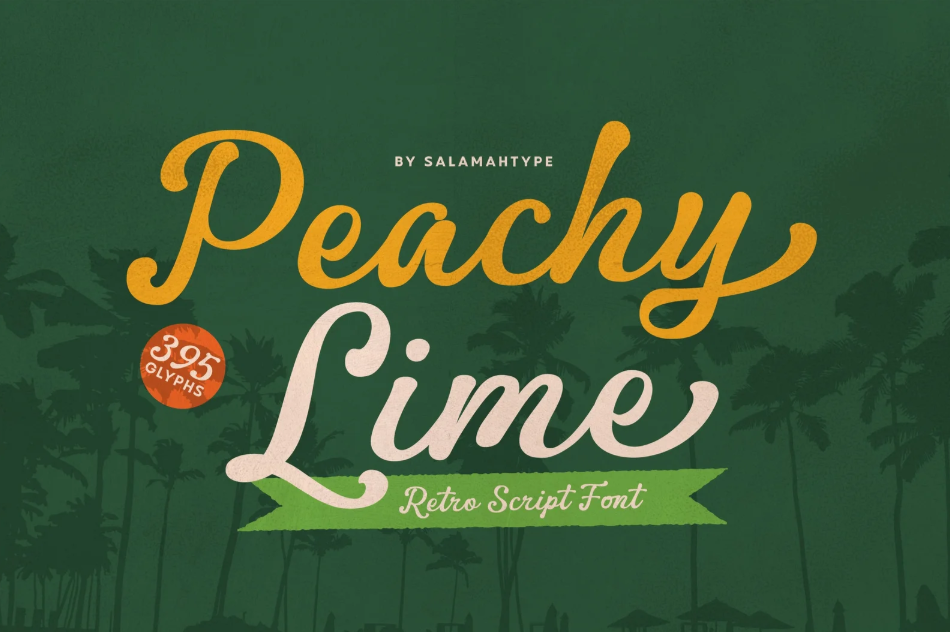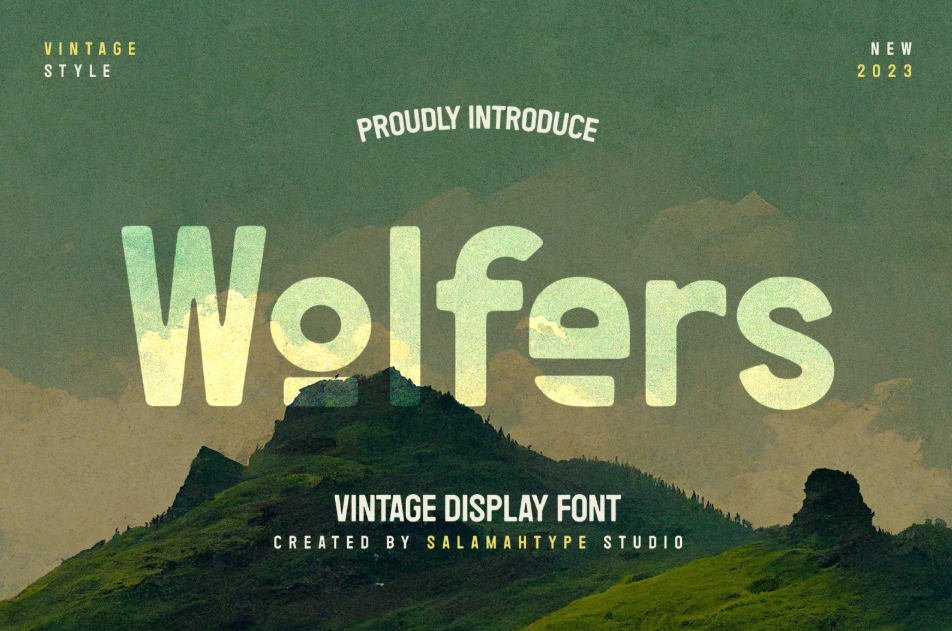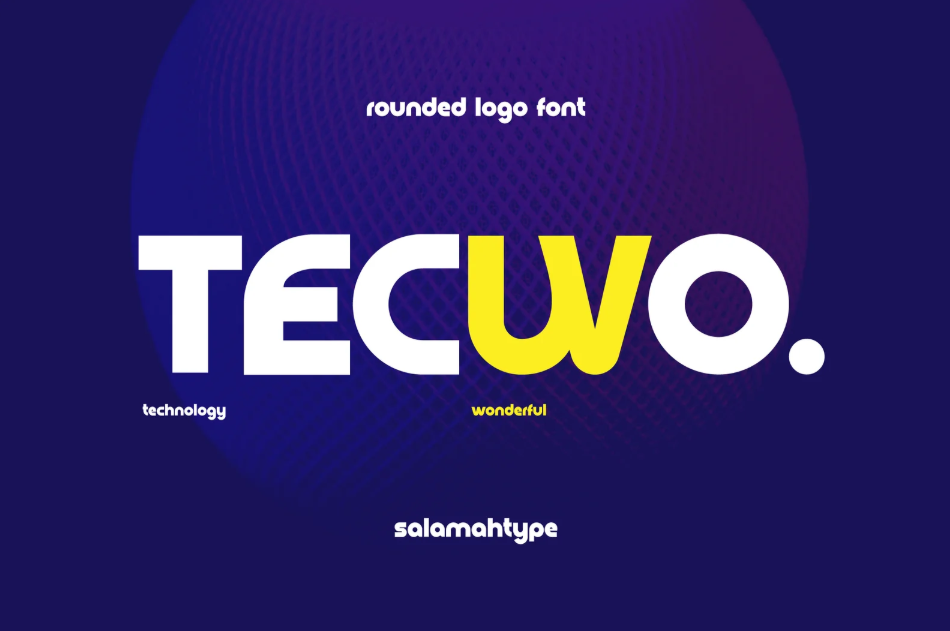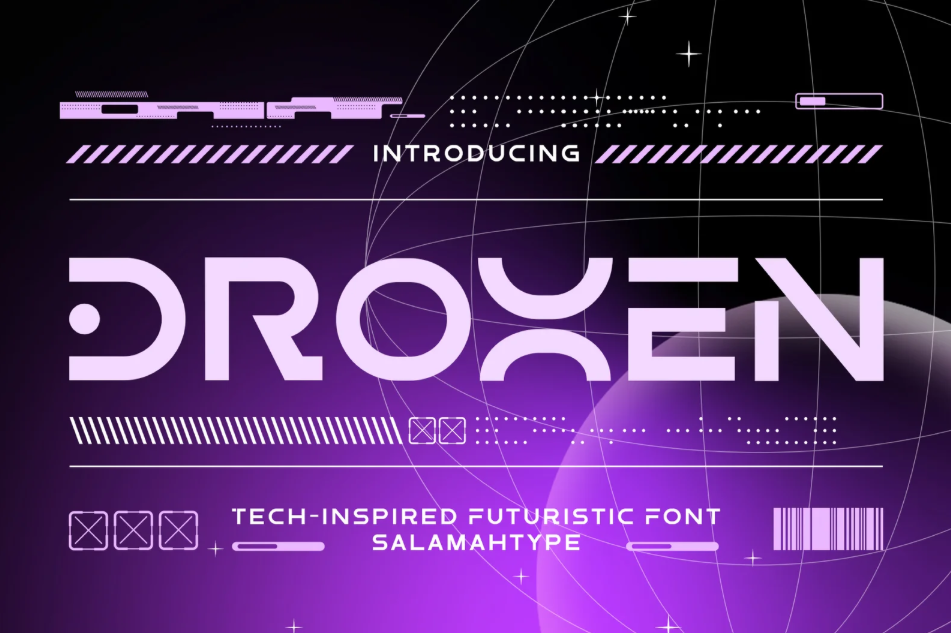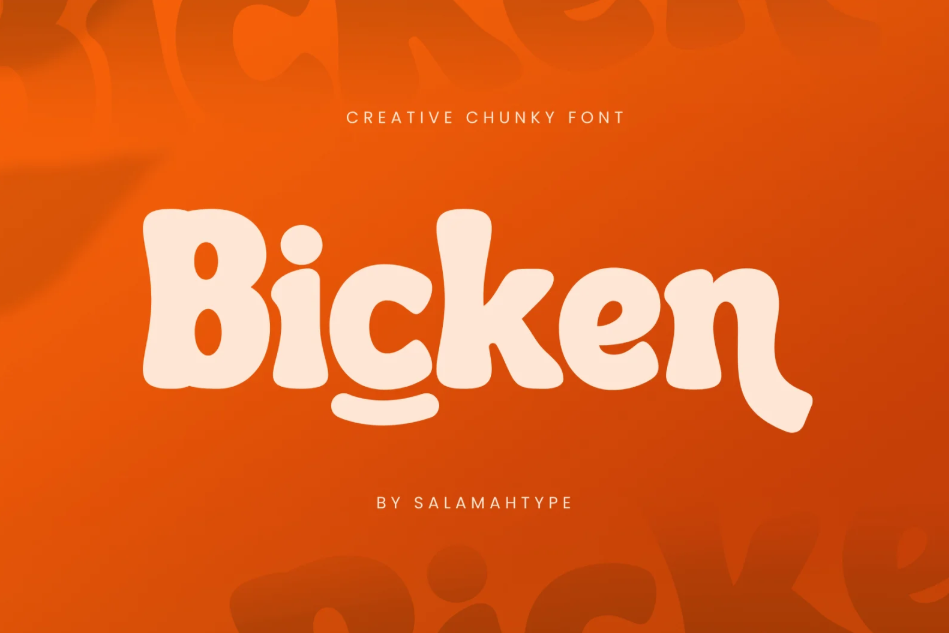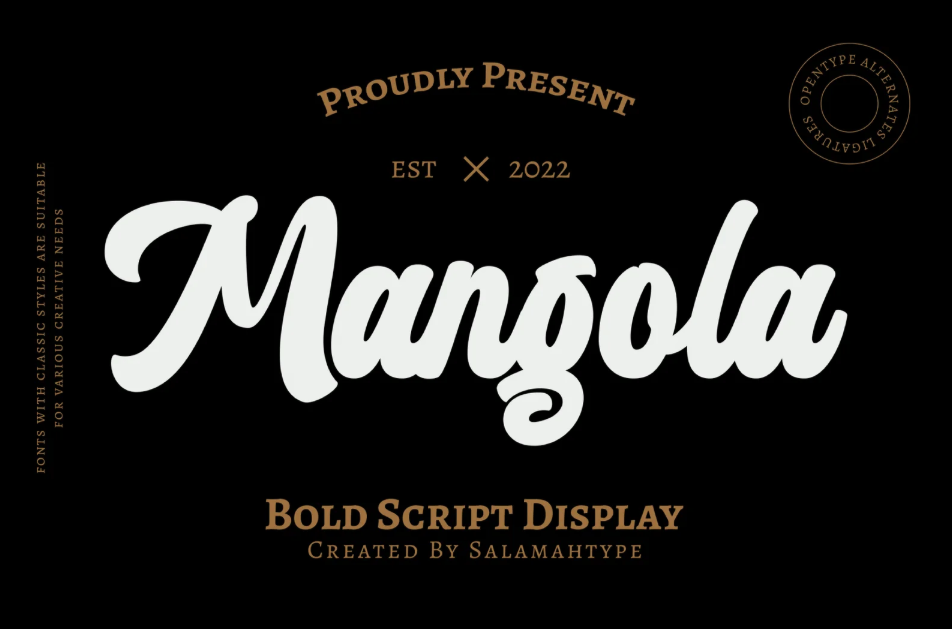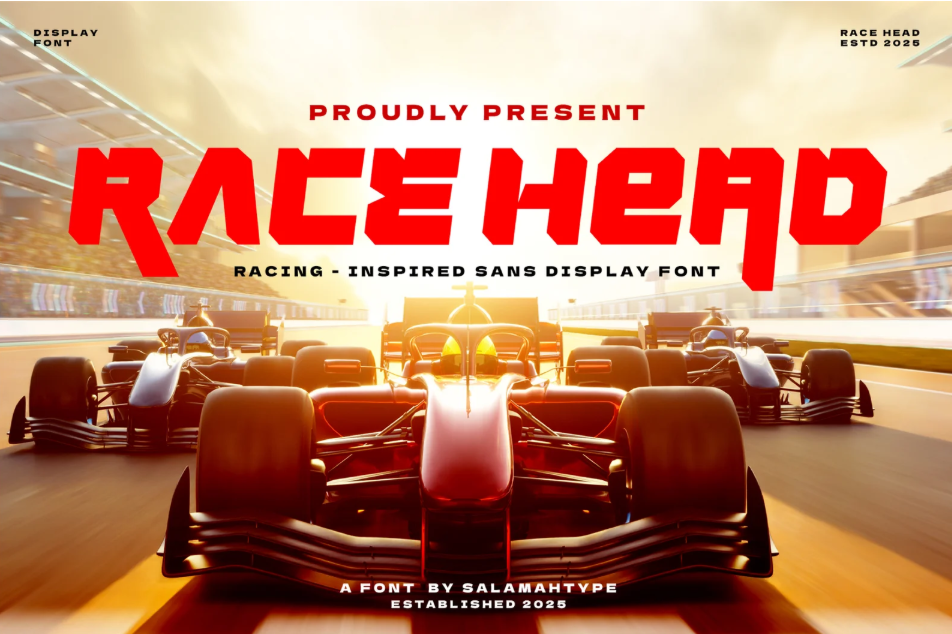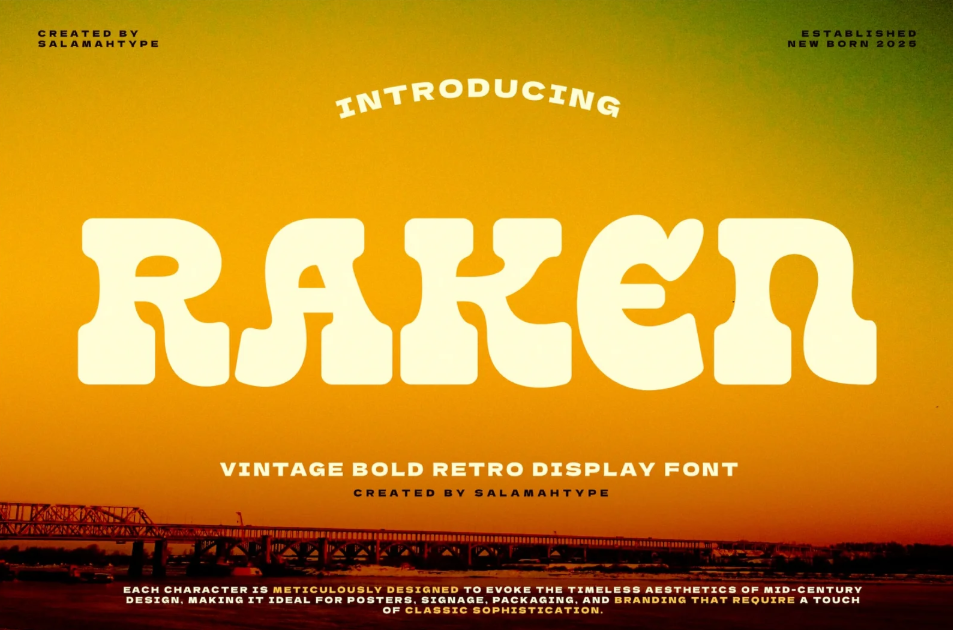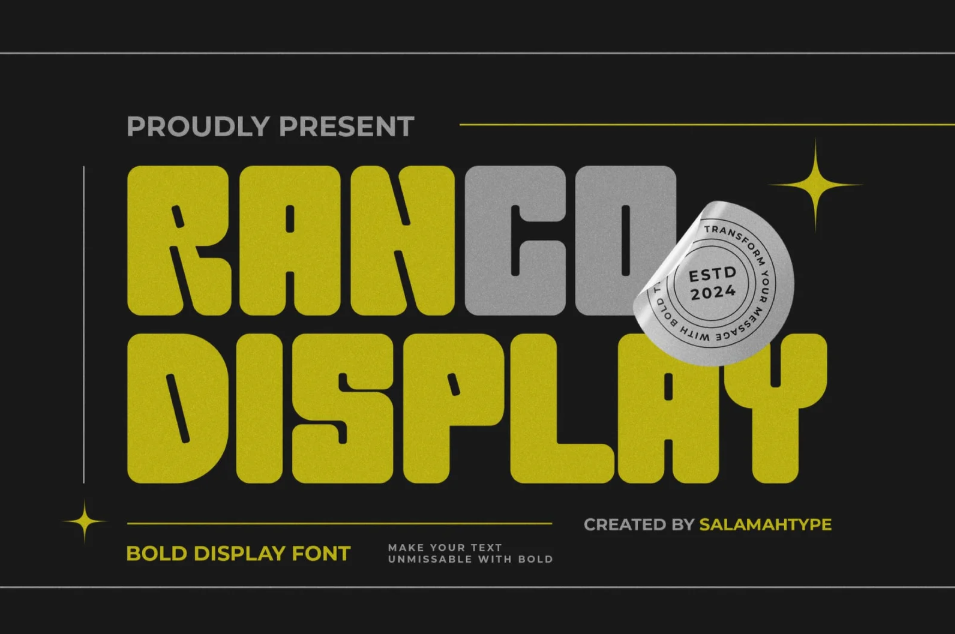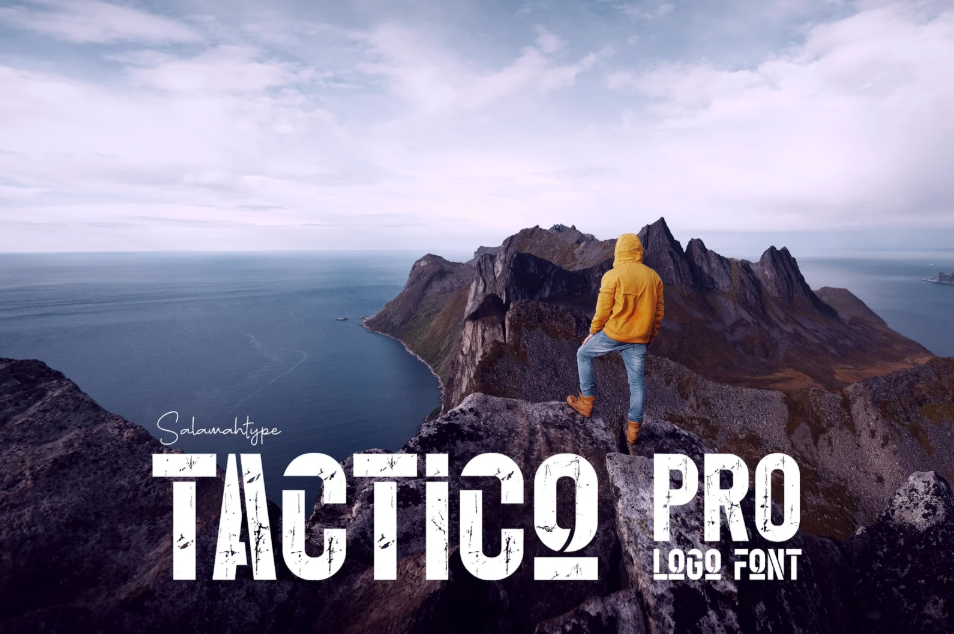
The enduring relevance of a bold vintage font guarantees the authenticity of historical-themed designs because of its spectacular thickness and unrivalled originality. Our fonts can strengthen your designs’ vintage vibe and uniqueness to give your audience a long-lasting impression.
Key takeaway:
Abdullah, an expert in graphic design, highlights that bold fonts accurately absorb all attention just in a glance, while vintage style evokes both nostalgic and modern appeals.ย
With the list of our fonts, you can captivate your audience not only with the bold and vintage quality but also with the special feature that is unlike anything you have ever seen.
Slob Doughโs broad strokes and bold weight reflect the pleasing look of a risen dough. Despite the strong presence, the font maintains high readability for your logo.
The wide proportion and clean structure of Redtrap instantly seize attention. Mixing the expanded and the regular versions creates a self-assured and masculine aesthetic to your logo.
Race Head energizes your sport branding projects with its athletic thickness and alternates. Its fierce and fast design tailors your visual for a customized, competitive look.
The letter shapes of Hydration echo the fluid and wave-like motion of water. Integrate the alternates in your oceanic-inspired posters to craft fresh and polished appearances.
The angular contours and smooth curves of Raken balance the boldness seamlessly. The fontโs flawless fusion of traditional and fashionable elements can infuse your merchandise with a lasting allure.
Rancoโs bold silhouettes and rounded edges command attention with a friendly yet impactful appearance. Integrate the oblique counters of the bold vintage font on your corporate logo for a refined sense of modernity.
The gritty texture of Tactico Proโs letter shapes delivers a bold and edgy presence. Blend the regular, thin, and slant styles to craft a standout and original appeal.
The uniform thickness and hand-drawn strokes of this vintage bold script fontโ provide a classic and unforgettable charm to your advertisement.
Cheeky Moghsterโs sleek lines and space-inspired letter forms exude playful energy. Pair the regular, expanded, stamp, and slant styles to give a more dynamic look to your titles.
The impeccable smoothness and delicate thickness of Peachy Lime produce a wonderful design. Use its memorable alternates to add a bright and cheerful feel to your travel posters.
The chunkiness and the thickness of Cheezy Snack are as scrumptious as cheeseburgers. Use the oblique version to add a more flavorful feel to your food-related designs.
Black Phantom exudes an eerie tension yet commanding impression with its clarity and uniqueness. Opt for the textured version to underline the strong character in your logo.
Wolfersโ simplicity carries the mysterious allure of an alpha wolf. Combine the grunge and stamp style of the bold vintage font to enhance the personality in your logo.
Techwoโs advanced letter forms work perfectly with sleek lines and rounded contours. Utilize high-tech alternates on your technology-related projects for a more cutting-edge look.
Maintakerโs strong boldness and straight baseline immediately grab attention with its striking appeal. Carve the professional-looking capitals and lowercase to distinguish branding projects from others.
Monzaneโs crisp lines and thick strokes capture attention through their straightforward simplicity. Include the striking four other styles in your news headlines.
The pronounced serifs and solid baseline capture the essence of the Zenarico charm. Apply the textured style to give your logo of apparel, it becomes an untamed feel.
Droxenโs stylistic letter forms infuse a modern and forward-looking appearance into your technology-focused branding. Use the ligatures to perfect your logoโs innovative design.
Bickenโs extended terminals and minimal embellishments enhance the fontโs boldness with nostalgia. Add the unique alternates to your banners for a groovy vibe.
With its bold strokes and handcrafted flair, Mangolaโs stylistic alternates can work beautifully to build a good reputation for your brand.
Nostalgic boldness and out-of-this-world yet familiar uniqueness describe vintage fonts accurately. Your bold vintage font should be unbound by theoretical expectations but deliver the message of your designs properly.ย Discover your one bold font in Salamah Type. There are a bunch of bold font collections with various styles that can perfect your designs. Enhance their unforgettable appeal with more than one font and arrange them to craft the extraordinary typography that speaks for you.